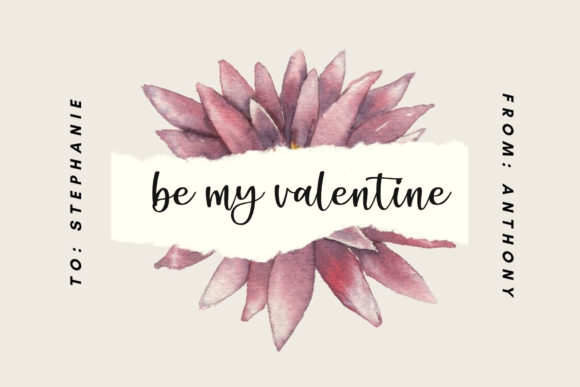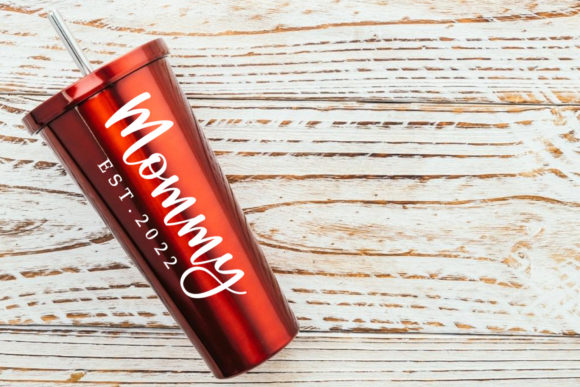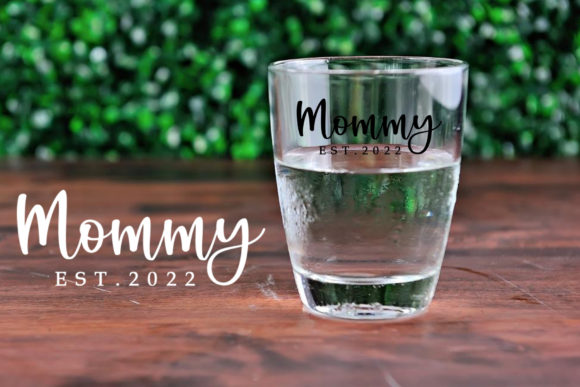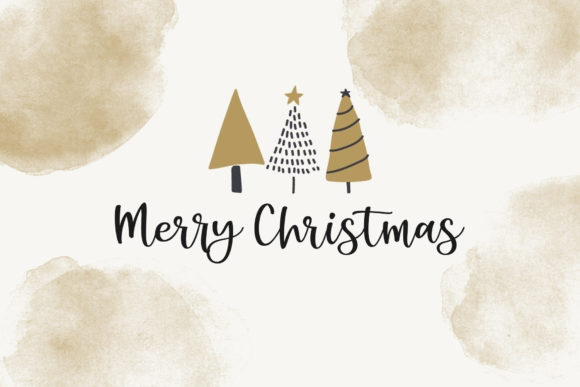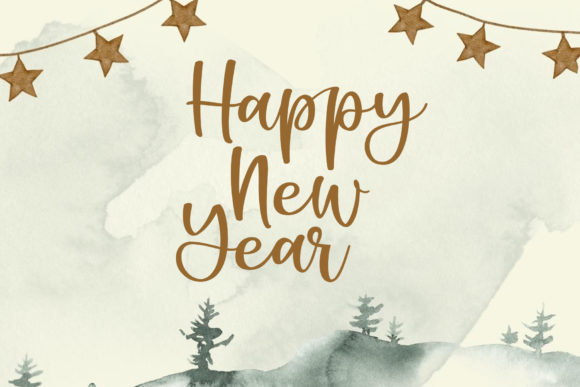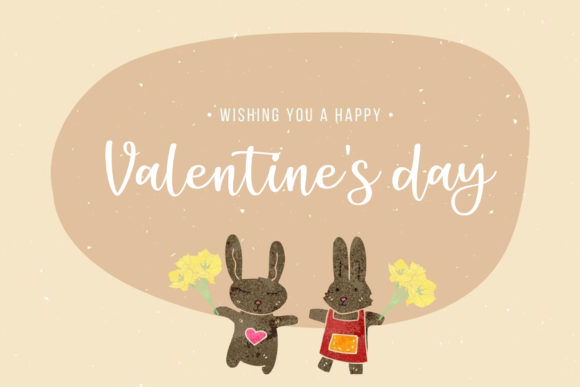
Meet Your New Creative Partner: The Brittany Font
There’s nothing quite like the thrill of bringing a project to life – the spark of inspiration, the late-night design sessions, and the satisfaction of seeing your vision take shape. For many creatives, this feeling is what drives them to push boundaries and explore new possibilities. And that’s exactly where the Brittany Font comes in – a versatile and charming handwritten font that’s designed to help you turn your ideas into stunning works of art.
With its natural, adaptable feel, the Brittany Font is the perfect companion for designers looking to add a touch of personality to their projects. Whether you’re working on a branding campaign, a wedding invitation, or a social media post, this font’s flexibility and charm will help you create something truly special. Plus, its PUA encoding makes it easy to access all the glyphs and swashes you need to get creative.
Brittany Font Key Features
- Unique Characteristics: Elegant and refined script font with a touch of whimsy, ideal for invitations, wedding stationery, and other special occasions
- Font Style: Script
Brittany Font Review
Overall, I found the Brittany Font to be a solid, modern choice for a variety of design projects. ✨ Its clean lines, elegant curves, and balanced proportions make it a great option for creating a sophisticated and polished look.
The font is highly legible, even at smaller sizes, and its OpenType features allow for some nice variations in letterform design. ✨ This makes it a good choice for longer blocks of text, such as articles or essays.
However, there are a few limitations to consider. ⚠️ For one, the font may be a bit too conservative for some designers looking to create a more edgy or avant-garde aesthetic. Additionally, the font’s lack of bold weights may make it less suitable for headlines or other situations where a bold, attention-grabbing font is needed.
Here are a few specific things I liked and disliked about the Brittany Font:
- ✨ Highly legible and clear at a variety of sizes
- ✨ Nice OpenType features for added design flexibility
- ⚠️ Limited bold weights
- ⚠️ May be too conservative for some design projects
Overall, I would recommend the Brittany Font for designers looking for a clean, modern, and highly legible font for a variety of projects. However, it may not be the best choice for designers looking for a bold or edgy aesthetic.
Brittany Font: A Practical Application Guide
Some common use cases for Brittany Font include:
– Creating elegant invitations and event materials.
– Designing modern and minimalist branding materials.
– Adding a touch of sophistication to digital presentations and documents.
– Experimenting with bold and playful text effects.
Alternatives to Brittany Font
Great Vibes is a modern, elegant script font ideal for creative projects that require a touch of sophistication. It’s perfect for use in wedding invitations, branding, and editorial design. Great Vibes is more elegant and refined compared to Brittany Font, making it suitable for high-end designs.
Alex Brush is a handwritten font with a personal, storytelling feel. It’s perfect for use in creative projects that require a touch of warmth and personality. Alex Brush is more rustic and less refined compared to Brittany Font, making it suitable for designs that require a more casual, handwritten feel.
Carolyna Pro is a modern, elegant script font with a touch of sophistication and elegance. It’s perfect for use in creative projects that require a high-end, luxurious feel. Carolyna Pro is more refined and polished compared to Brittany Font, making it suitable for designs that require a touch of glamour.